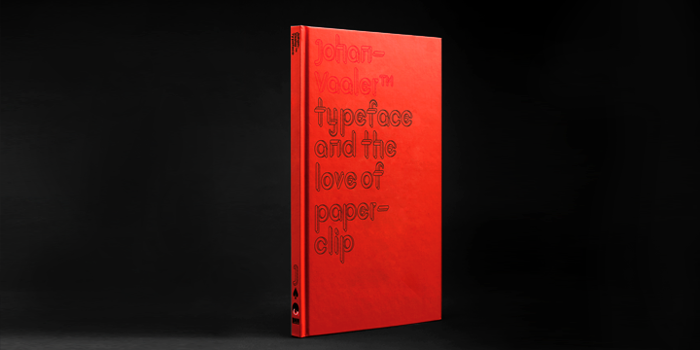
JohanVaaler Font
Typeface was inspired by a original designer and the inventor of the paperclip name Johan Vaaler. This typeface came in a packages of family with an impressive nine fonts unique individually styles Regular, Bold, Solid, Italic, Bold Italic, Black, Knockout and Shadow. Here a few excellent examples for you to try out and enjoy the fonts.